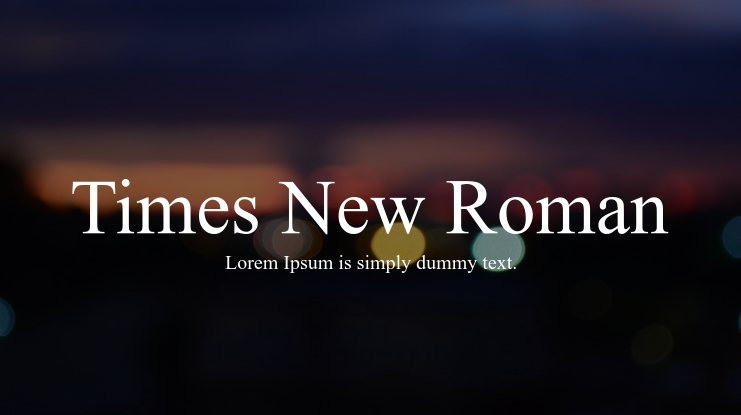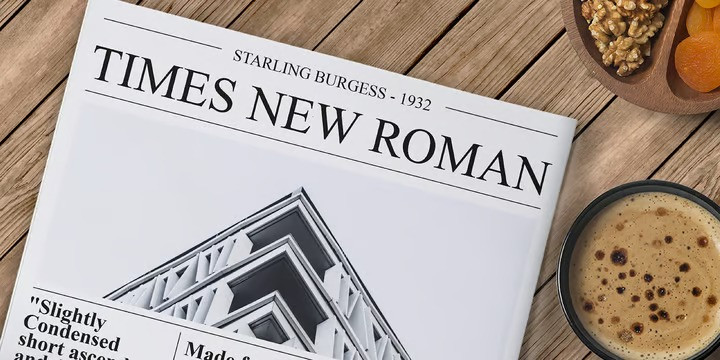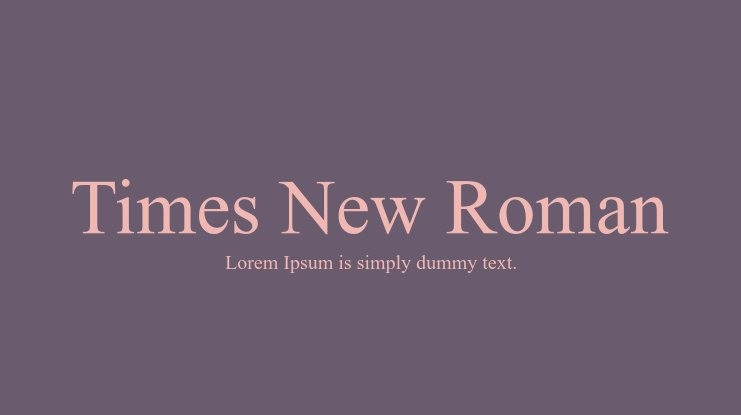
Times New Roman Font
Times New Roman Serif Font Family. In 1931, The Times of London commissioned a new text type design from Stanley Morison and the Monotype Corporation, after Morison had written an article criticizing The Times for being badly printed and typographically behind the times. The new design was supervised by Stanley Morison and drawn by Victor Lardent, an artist from the advertising department of The Times. Morison used an older typeface, Plantin, as the basis for his design, but made revisions for legibility and economy of space (always important concerns for newspapers). As the old type used by the newspaper had been called Times Old Roman,” Morison’s revision became “Times New Roman.” The Times of London debuted the new typeface in October 1932, and after one year the design was released for commercial sale. The Linotype version, called simply “Times,” was optimized for line-casting technology, though the differences in the basic design are subtle. The typeface was very successful for the Times of London, which used a higher grade of newsprint than most newspapers. The better, whiter paper enhanced the new typeface’s high degree of contrast and sharp serifs, and created a sparkling, modern look. In 1972, Walter Tracy designed Times Europa for The Times of London. This was a sturdier version, and it was needed to hold up to the newest demands of newspaper printing: faster presses and cheaper paper. In the United States, the Times font family has enjoyed popularity as a magazine and book type since the 1940s. Times continues to be very popular around the world because of its versatility and readability. And because it is a standard font on most computers and digital printers, it has become universally familiar as the office workhorse. Times?, Times? Europa, and Times New Roman? are sure bets for proposals, annual reports, office correspondence, magazines, and newspapers.
Linotype offers many versions of this font:
Times? is the universal version of Times, used formerly as the matrices for the Linotype hot metal line-casting machines. The basic four weights of roman, italic, bold and bold italic are standard fonts on most printers. There are also small caps, Old style Figures, phonetic characters, and Central European characters.
Times? Ten is the version specially designed for smaller text (12 point and below); its characters are wider and the hairlines are a little stronger. Times Ten has many weights for Latin typography, as well as several weights for Central European, Cyrillic, and Greek typesetting.
Times? Eighteen is the headline version, ideal for point sizes of 18 and larger. The characters are subtly condensed and the hairlines are finer.”